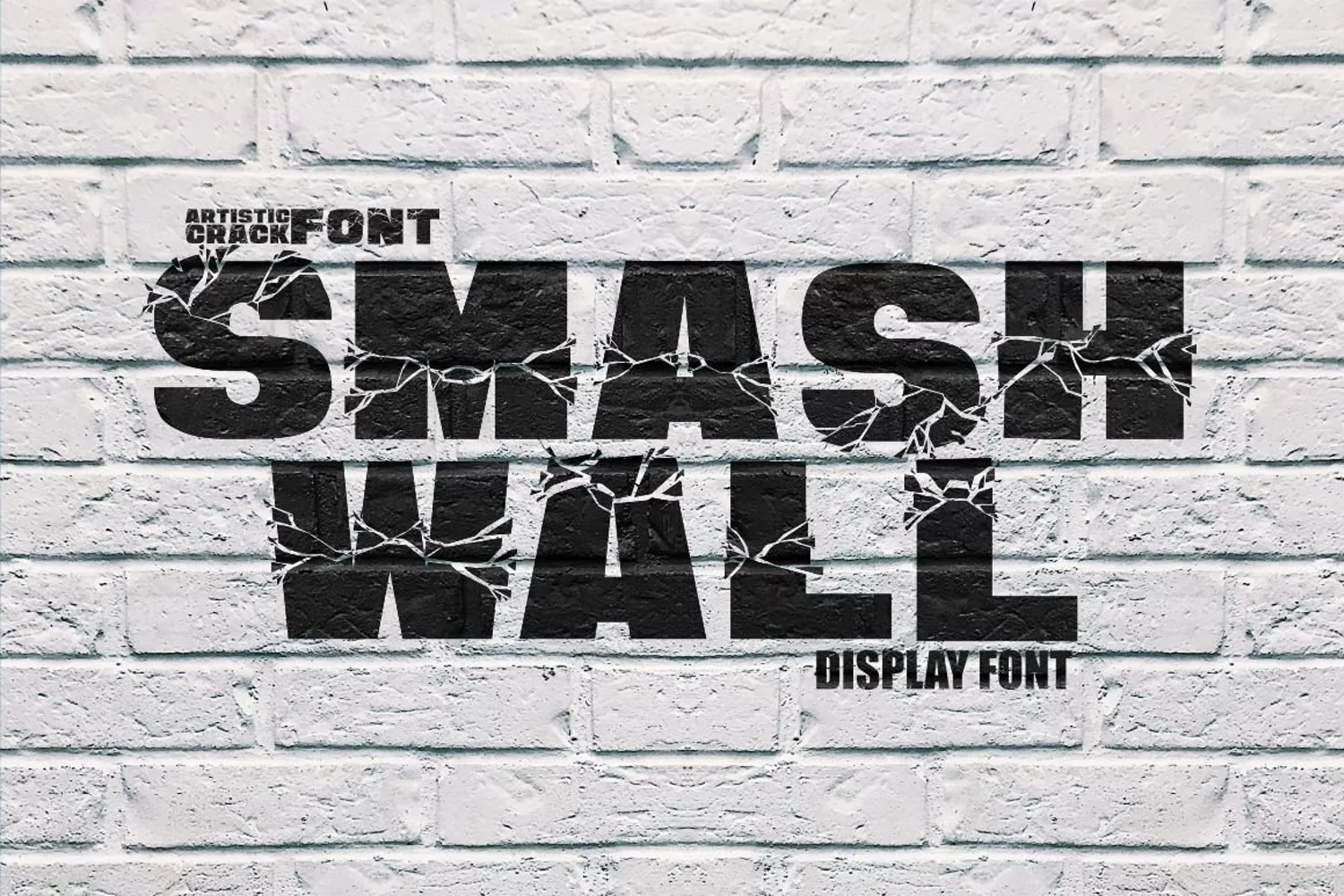
SMASH WALL
SMASH WALL is display font that inspired by a wall that was cracked because of being hit, the character of this font is strong and bold. the pieces are made as realistic as possible, as if they were broken by being hit. each character has 3 versions of fractional locations, above, middle and below.